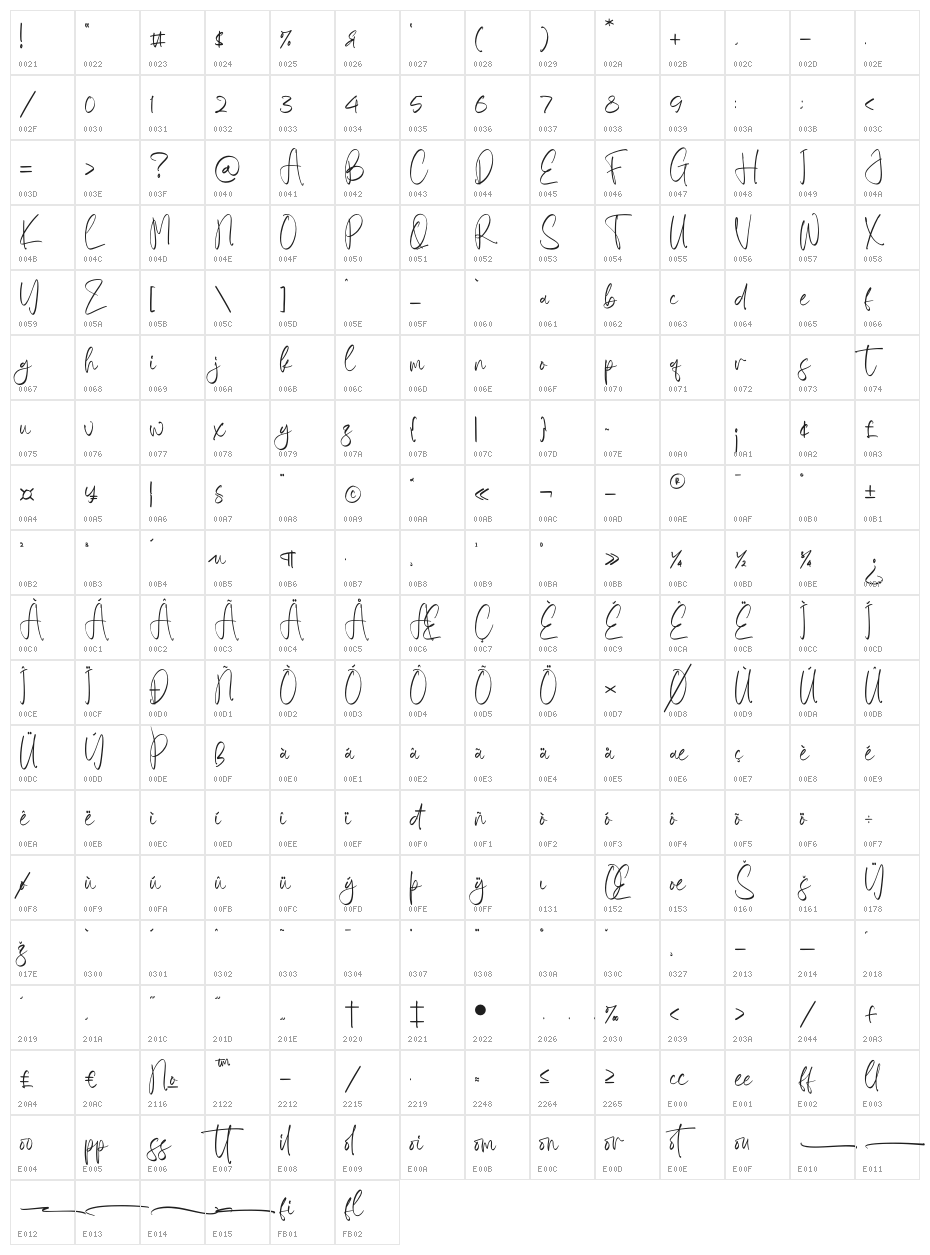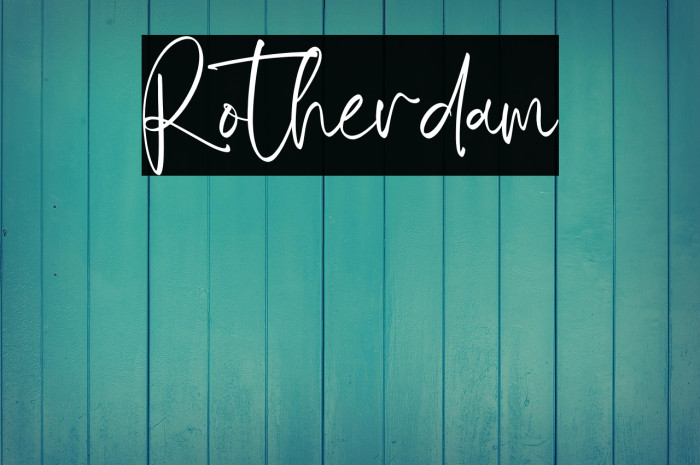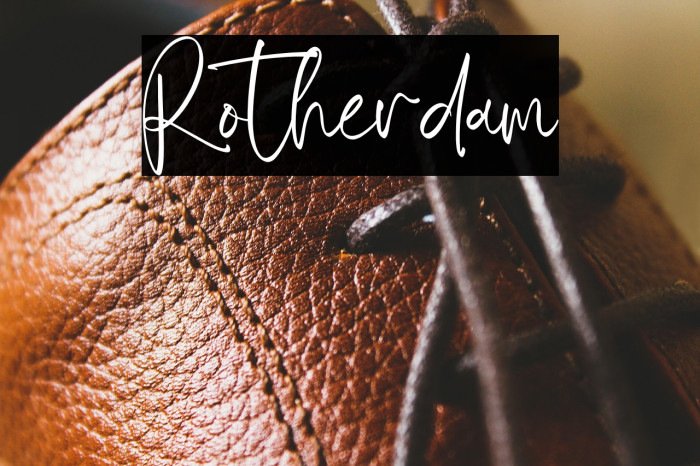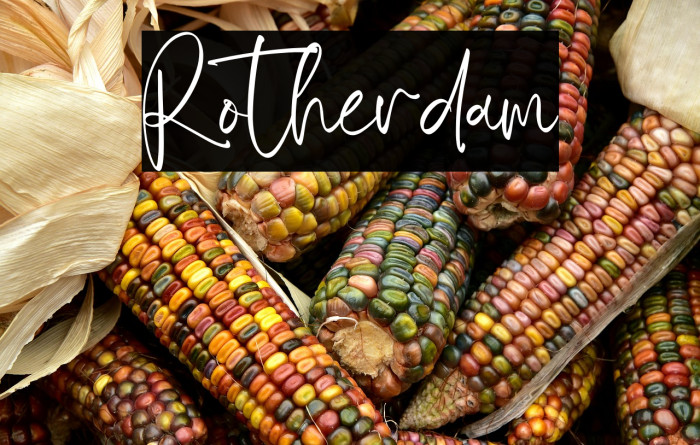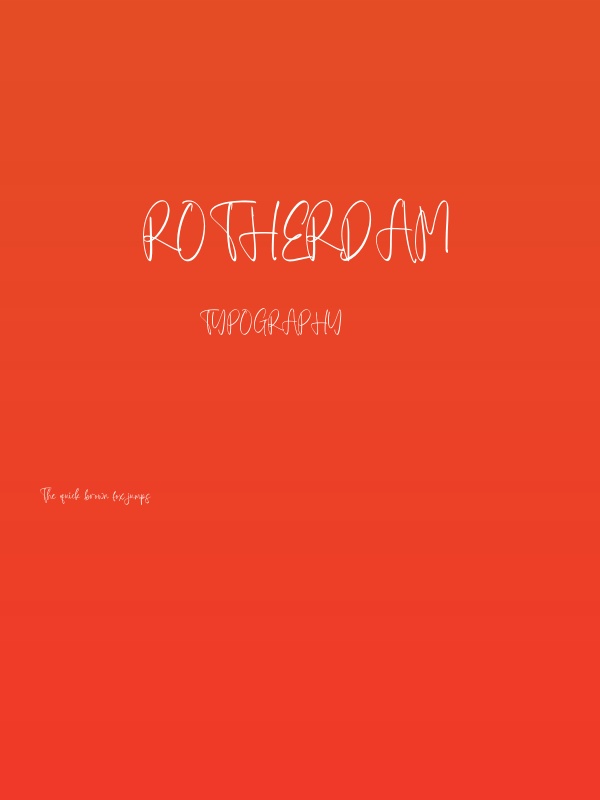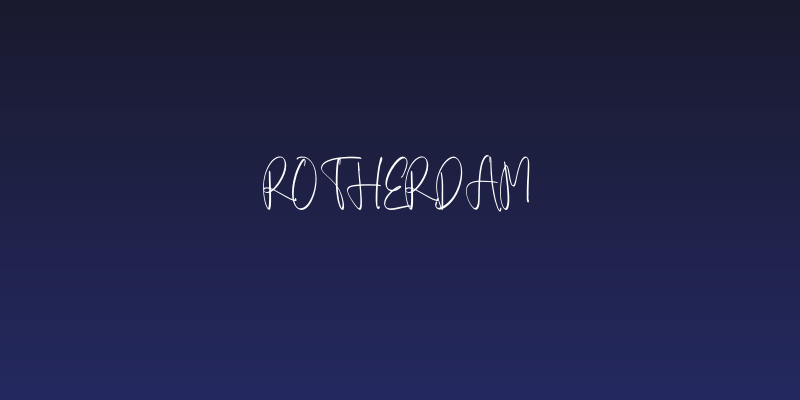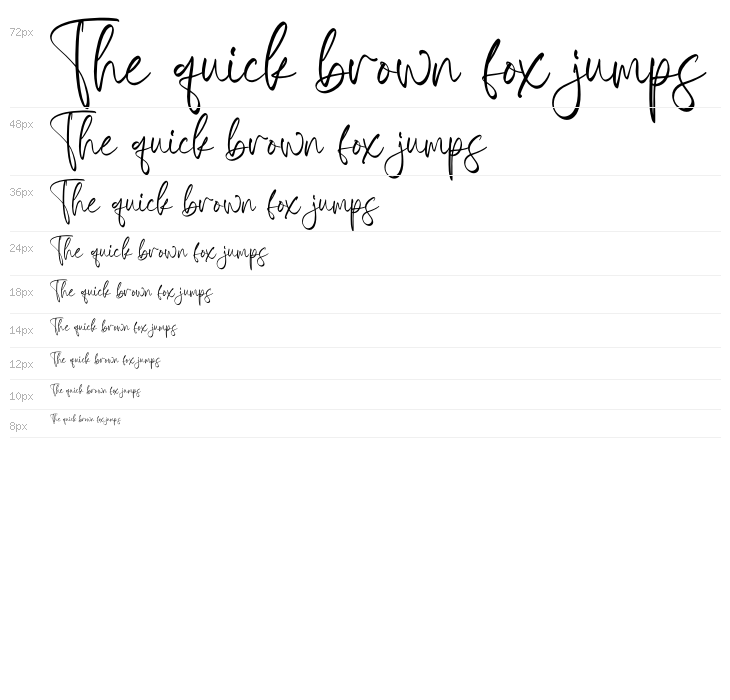
Rotherdam Font
Rotherdam Description
This font exhibits a lively and expressive handwritten style, characterized by its fluid and dynamic strokes. The letters are interconnected with a natural flow, giving it an organic and personal touch. The uppercase letters are tall and slightly narrow, while the lowercase letters maintain a consistent rhythm and balance. The numbers and special characters are crafted with the same playful and whimsical flair, ensuring a cohesive look throughout. The overall appearance is both casual and elegant, making it suitable for projects that require a personal and approachable feel.
Overall StyleCasual, Elegant
Use CaseLogos, Invitations, Social Media Graphics
Proposed ProjectsIdeal for personal invitations, greeting cards, branding projects, and social media graphics that require a personal and approachable touch.